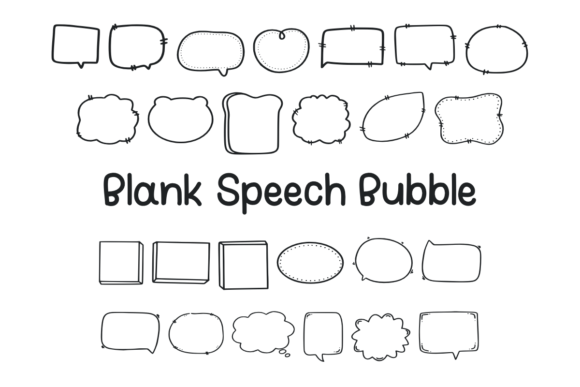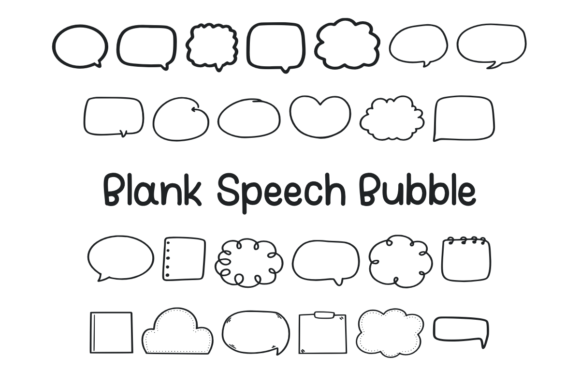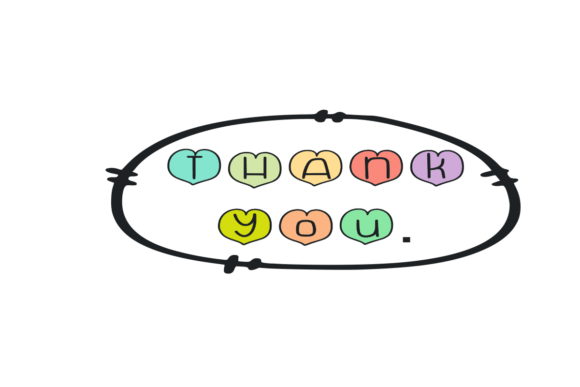
The Blank Speech Bubble Font: A Cute and Useful Hand-Drawn Dingbats Font
Have you ever been working on a design project, and suddenly, you need the perfect speech bubble font to bring your creative vision to life? I recall a recent experience where I was crafting a comic strip for a client, and I found myself scouring the internet for the ideal font. That’s when I stumbled upon the Blank Speech Bubble font, a cute and useful hand-drawn dingbats font that has since become a staple in my design toolkit.
• ✨ Cute and playful design: The Blank Speech Bubble font is perfect for adding a touch of whimsy to your designs.
• ✅ Versatility: This font is suitable for a wide range of projects, from planners and digital designs to presentations, worksheets, and greeting cards.
• 🎨 Hand-drawn charm: The font’s hand-drawn nature gives it a unique, organic feel that sets it apart from more traditional fonts.
• ⚠️ Limited character set: As a dingbats font, Blank Speech Bubble has a limited character set, which may require some creative problem-solving when working with certain projects.
• 🤔 Kerning adjustments: Some users may need to make manual kerning adjustments to achieve optimal results, especially when using the font in larger sizes.
The Designer Inspiration Behind Blank Speech Bubble
The Blank Speech Bubble font was created with the intention of providing designers with a fun and versatile tool for adding speech bubbles to their designs. The font’s hand-drawn nature and playful design make it perfect for a wide range of creative projects. While the actual designer behind the font remains unknown, it’s clear that their goal was to create a font that would bring a touch of whimsy to designs.
Q: What type of projects is Blank Speech Bubble best suited for?
A: Blank Speech Bubble is perfect for a wide range of projects, including planners, digital designs, presentations, worksheets, greeting cards, comics, posters, and more.
Q: Is Blank Speech Bubble a Unicode font?
A: As a dingbats font, Blank Speech Bubble does not follow the standard Unicode character set. However, it does feature a wide range of glyphs and symbols.